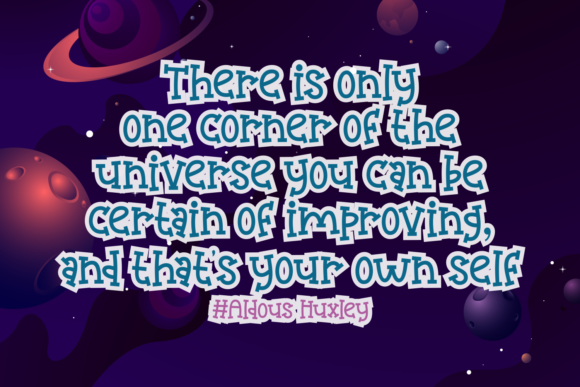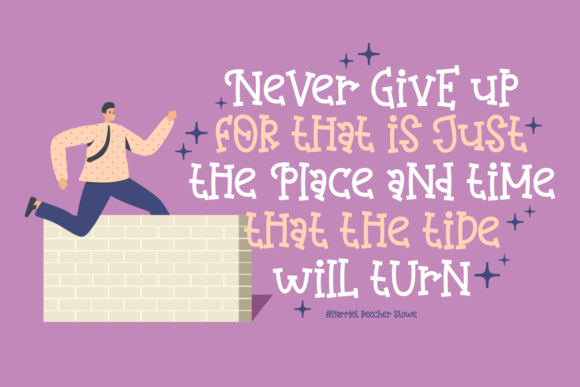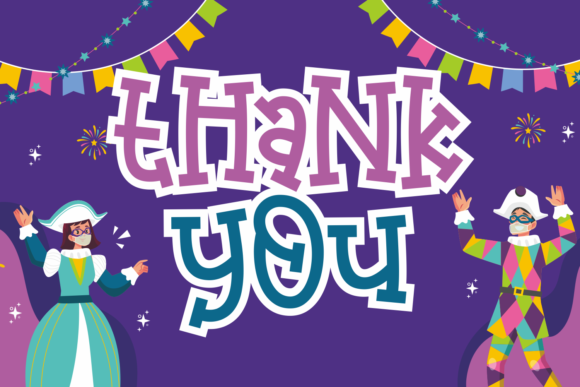
Introduction to Aprilio Funny Font Font
Fonts play a crucial role in design, and the Aprilio Funny Font font is a typeface that brings both character and versatility to any project. Whether you’re working on a branding project, a website, or a print design, the Aprilio Funny Font font offers a unique style that can elevate your work.
Aprilio Funny is a playful display font that you can use for cartoons, quotes, magazine covers, games, or pretty much anything that requires a jolly touch.
Key Features of Aprilio Funny Font Font
Why Choose Aprilio Funny Font Font?
The Aprilio Funny Font font is more than just a typeface – it’s a design tool that helps you communicate your message with style and clarity. Its unique character set and versatile design make it suitable for a wide range of applications, from elegant invitations to bold headlines.
With its carefully crafted letterforms and balanced proportions, the Aprilio Funny Font font ensures readability and visual appeal across all mediums.
What makes Aprilio Funny Font font special?
The Aprilio Funny Font font stands out with its unique design, exceptional readability, and versatility across various design applications.